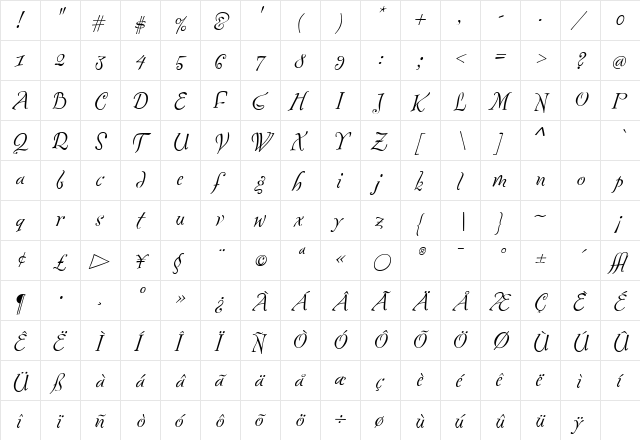
Fontesque Italic
Fontesque takes a measured approach to typography — its balanced proportions and neutral character make it a reliable workhorse for both digital and print work. The slanted form adds forward momentum and visual energy.